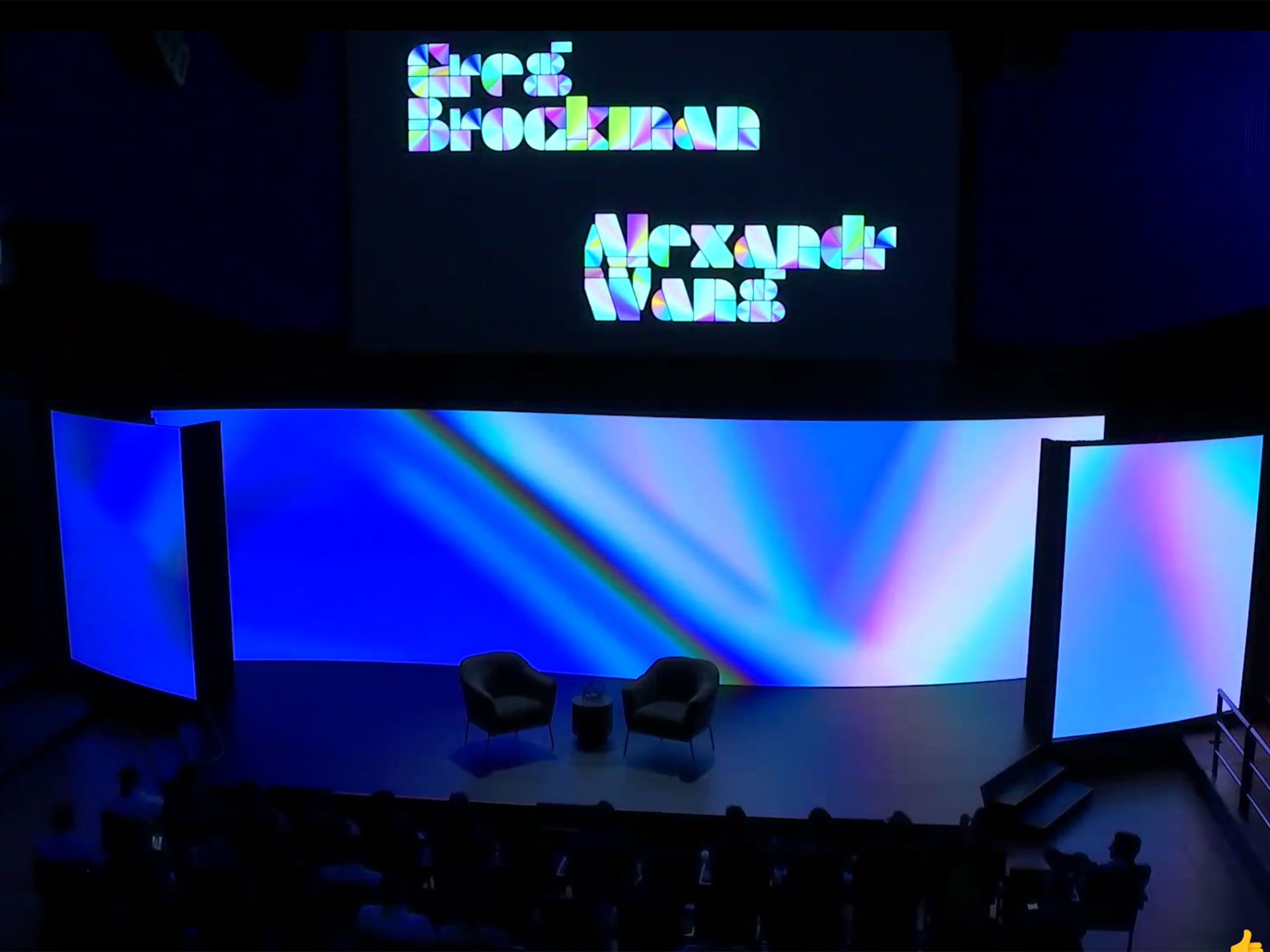
The TransformX conference, organised by Scale in October 2022, used a colour version of the Plakato font. The COLRv1 font format allows us type designers to add colours to fonts. Such new techniques will then become first possible in browsers, but other applications will soon follow. At the TransformX conference, the speakers were announced with the font Plakato Color (in the COLRv1 format), in a colour palette that matches the identity of the conference. It’s good to see new techniques finding their own way out there in the world, and this is a very early example of that.
TransformX conference 2022
Scale
Plakato